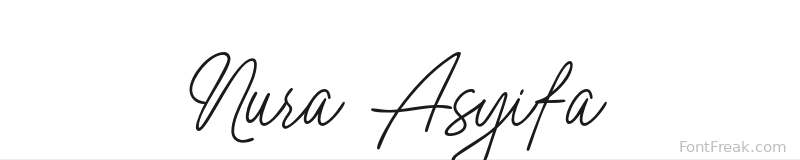
Nura Asyifa
About Nura Asyifa
Nura Asyifa is a beautifully crafted script font designed by Syaf Rizal, characterized by its elegant and fluid strokes. This font falls within the handwritten category, bringing a personal touch to various design contexts. Each letter showcases a delicate balance between thick and thin strokes, creating a graceful contrast that enhances readability while retaining a distinct artistic flair. The spacing between characters is thoughtfully adjusted to maintain a harmonious flow, making it ideal for both personal and professional use.
This versatile font is perfect for a range of applications. Wedding invitations benefit from its romantic and sophisticated appearance, while greeting cards can leverage its charm to convey heartfelt messages. Additionally, Nura Asyifa shines in branding materials, offering a unique identity for small businesses, especially those in the creative industry such as boutiques or artisan shops. It can also elevate restaurant menus, providing an inviting and upscale feel that draws customers in. Content creators looking to enhance their projects will find this font equally appealing for social media graphics and lifestyle blogs.
The target audience for Nura Asyifa includes graphic designers, small business owners, and content creators who seek a distinctive typeface that stands out. Its ability to convey warmth and personality makes it an excellent choice for anyone looking to add a personal touch to their designs.
What truly sets Nura Asyifa apart is its ability to blend elegance with versatility. The font captures the essence of modern design while maintaining a timeless quality, making it suitable for both contemporary and classic themes. For those interested in exploring this unique style, the Nura Asyifa font free download offers an accessible opportunity to incorporate this stunning typeface into any project.